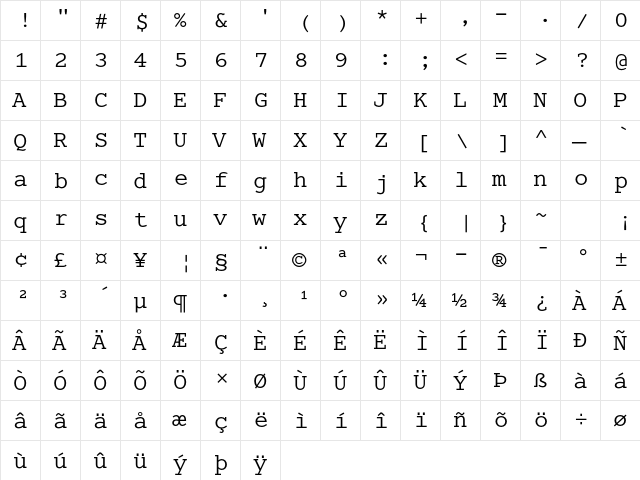
Cumberland Std Regular
Design Context for Cumberland Std Typeface
Cumberland Std is a composed and adaptable typeface that performs quietly and consistently across a wide range of design contexts.